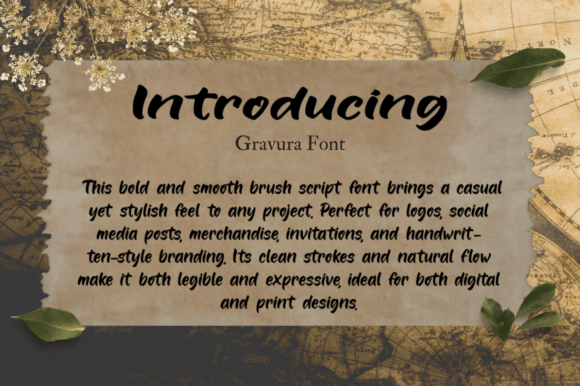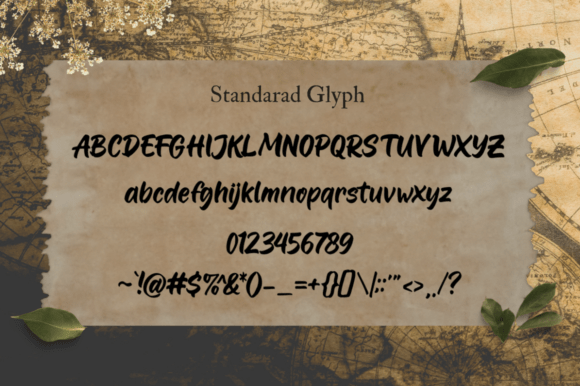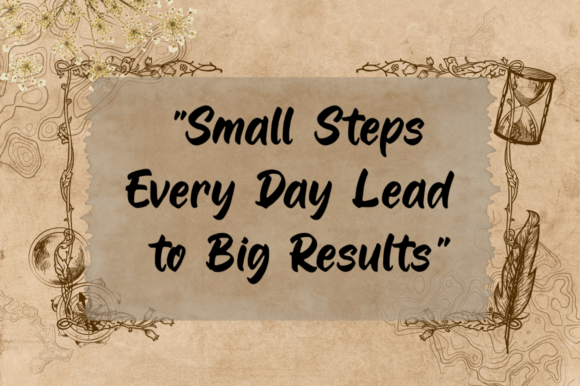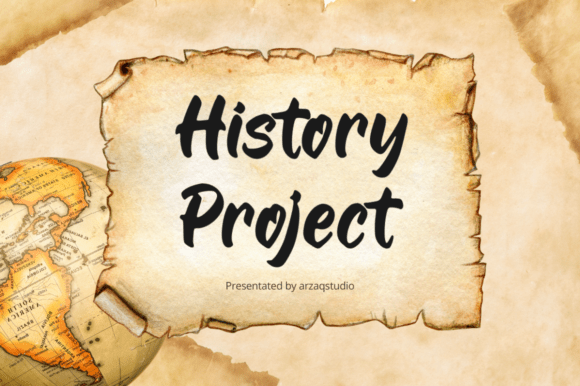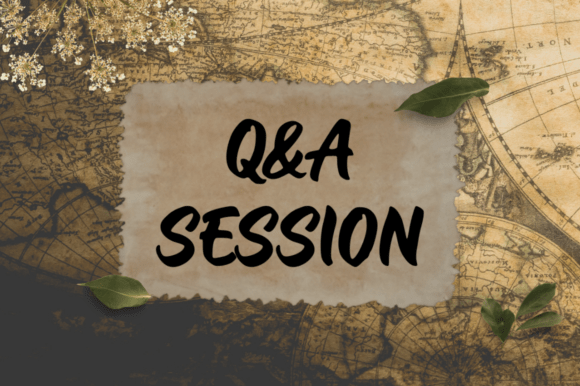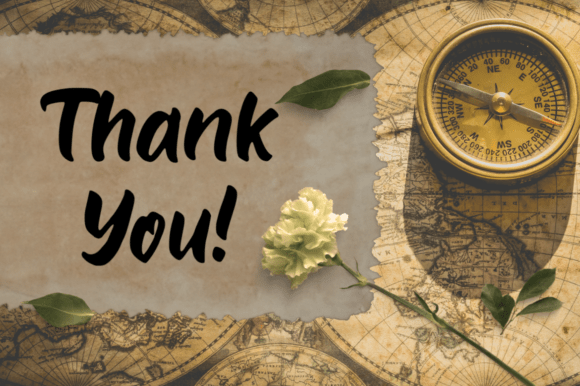
Introducing Gravura Font: Elevate Your Designs with a Casual yet Stylish Touch
Are you looking for a font that can add a personal touch to your designs without compromising on style? Look no further than Gravura Font, a bold and smooth brush script font that’s perfect for a wide range of creative projects. In this article, we’ll dive into the features and benefits of Gravura Font, and explore how it can elevate your designs, whether you’re a seasoned designer or a crafty DIY enthusiast.
What is Gravura Font?
Gravura Font is a beautifully crafted brush script font that exudes a casual yet stylish feel. Its clean strokes and natural flow make it both legible and expressive, ideal for both digital and print designs. With Gravura Font, you can add a personal touch to your logos, social media posts, merchandise, invitations, and handwritten-style branding, making it perfect for designers, crafters, and DIY enthusiasts alike.
Key Features of Gravura Font
- Bold and Smooth: Gravura Font boasts a bold and smooth appearance that’s perfect for making a statement. Its smooth strokes and natural flow create a fluid, handwritten look that’s both stylish and legible.
- Casual yet Stylish: Gravura Font strikes the perfect balance between casual and stylish. Its clean and elegant appearance makes it suitable for a wide range of designs, from logos and branding to social media posts and merchandise.
- Legible and Expressive: Gravura Font is designed to be both legible and expressive. Its clear and concise lettering makes it easy to read, while its natural flow and smooth strokes add a touch of personality to your designs.
- Versatile: Gravura Font is incredibly versatile and can be used for a wide range of designs, including logos, social media posts, merchandise, invitations, and handwritten-style branding.
Gravura Font is perfect for designers and crafters who want to add a personal touch to their designs. Whether you’re creating a logo, social media post, or merchandise, Gravura Font can help you stand out from the crowd. Its clean and elegant appearance makes it suitable for a wide range of designs, from formal and professional to casual and playful.
Use Cases for Gravura Font
- Logos and Branding: Use Gravura Font to create a unique and memorable logo that reflects your brand’s personality.
- Social Media Posts: Add a personal touch to your social media posts with Gravura Font. Its clean and elegant appearance makes it perfect for creating engaging and stylish social media graphics.
- Merchandise: Gravura Font is perfect for creating stylish and eye-catching merchandise, such as t-shirts, mugs, and tote bags.
- Invitations: Use Gravura Font to create beautiful and elegant invitations for weddings, parties, and other special occasions.
- Handwritten-Style Branding: Gravura Font is perfect for creating handwritten-style branding, such as product labels, packaging, and business cards.
Tips for Using Gravura Font
- Experiment with Colors: Gravura Font looks great in a variety of colors. Experiment with different colors to find the perfect combination for your design.
- Play with Sizes: Gravura Font is versatile and can be used in a range of sizes. Experiment with different sizes to find the perfect fit for your design.
- Combine with Other Fonts: Gravura Font pairs well with other fonts. Experiment with combining it with other fonts to create a unique and stylish look.
Gravura Font is a bold and smooth brush script font that’s perfect for adding a casual yet stylish touch to your designs. With its clean strokes, natural flow, and versatile appearance, it’s ideal for a wide range of creative projects. Whether you’re a designer, crafter, or DIY enthusiast, Gravura Font is a great addition to your font collection. So why wait? Download Gravura Font today and start elevating your designs with its unique and stylish touch!